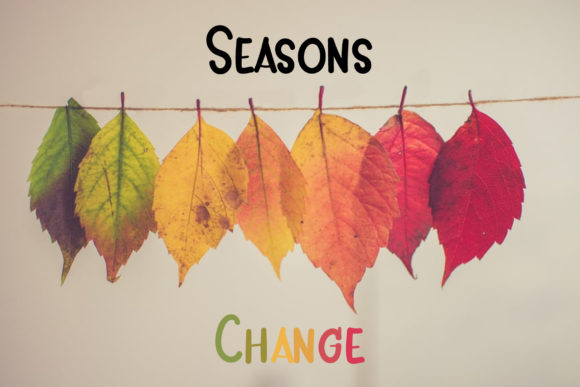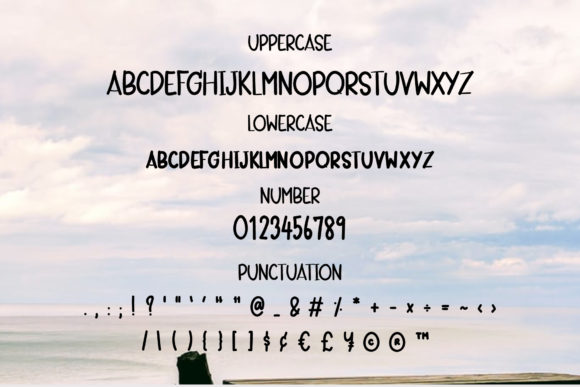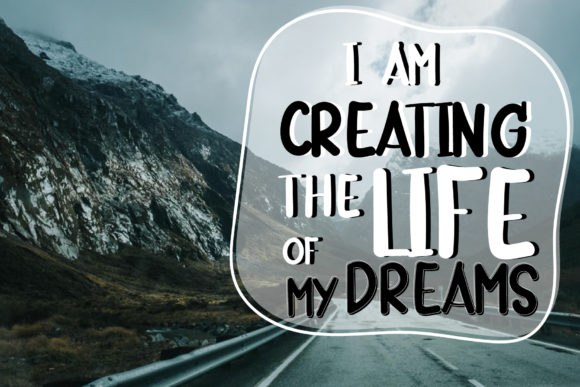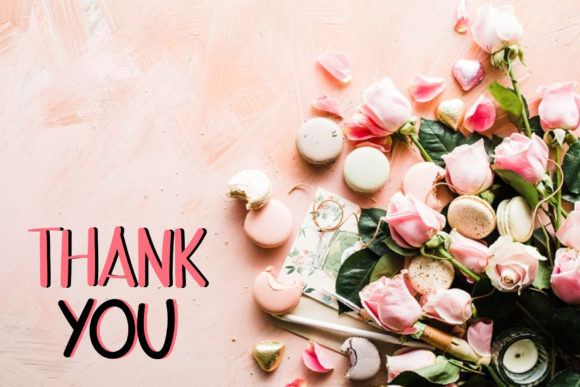
About Love Font: A Cute and Friendly Handwritten Font
Are you a designer or crafter looking for a font that can add a touch of warmth and personality to your designs? Look no further than the About Love font. This simple, childish handwritten font is perfect for creating casual, friendly designs that are sure to capture the hearts of your audience.
What is About Love Font?
About Love font is a type of handwritten font that is designed to mimic the natural, effortless look of handwriting. It has a cute and playful feel to it, making it ideal for designs that require a personal touch. The font is characterized by its rounded edges, irregular letterforms, and a general sense of whimsy.
Key Features of About Love Font
- Handwritten look: About Love font has a genuine handwritten look that is sure to add a touch of personality to your designs.
- Cute and playful: The font has a cute and playful feel to it, making it perfect for designs that require a lighthearted touch.
- Natural and effortless: The font is designed to look natural and effortless, as if it was written by hand.
- Rounded edges: The font features rounded edges that give it a soft and friendly look.
- Irregular letterforms: The font has irregular letterforms that add to its handmade feel.
Why Use About Love Font?
There are many reasons why you might want to use About Love font in your designs. Here are just a few:
- Casual and friendly designs: About Love font is perfect for creating casual, friendly designs that are sure to resonate with your audience.
- Personal touch: The font adds a personal touch to your designs, making them feel more approachable and relatable.
- Kids and family designs: The font’s playful and childish feel makes it ideal for designs aimed at kids and families.
- Crafting and DIY projects: About Love font is a great choice for crafting and DIY projects, such as handmade cards, gift tags, and scrapbooking.
How to Use About Love Font?
Using About Love font is easy. Here are a few tips to get you started:
- Pair with other fonts: About Love font pairs well with other fonts, such as sans-serif fonts and script fonts.
- Use in digital designs: The font can be used in digital designs, such as social media graphics, blog posts, and email newsletters.
- Use in print designs: The font can also be used in print designs, such as brochures, flyers, and posters.
- Experiment with colors: About Love font looks great in a variety of colors, so don’t be afraid to experiment and find the perfect color scheme for your design.
Here are a few tips and tricks to help you get the most out of About Love font:
- Keep it simple: About Love font is best used in simple designs that allow the font to shine.
- Use it consistently: Use About Love font consistently throughout your design to create a cohesive look.
- Add embellishments: Consider adding embellishments, such as graphics or illustrations, to enhance your design.
About Love font is a cute and friendly handwritten font that is perfect for creating casual, friendly designs. Its natural, effortless look and playful feel make it ideal for designs that require a personal touch. Whether you’re a designer or crafter, About Love font is a great choice for adding a touch of warmth and personality to your designs.